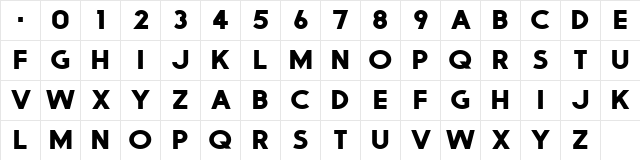
Metalarts 101 Futura Regular
Design Context for Metalarts 101 Futura Typeface
Metalarts 101 Futura channels digital-age aesthetics through its sharp, structured letterforms — ideal for brands that want to signal innovation.
Pro Tip: Try Metalarts 101 Futura with generous letter-spacing in UI labels and navigation — the geometric forms benefit from room to breathe.